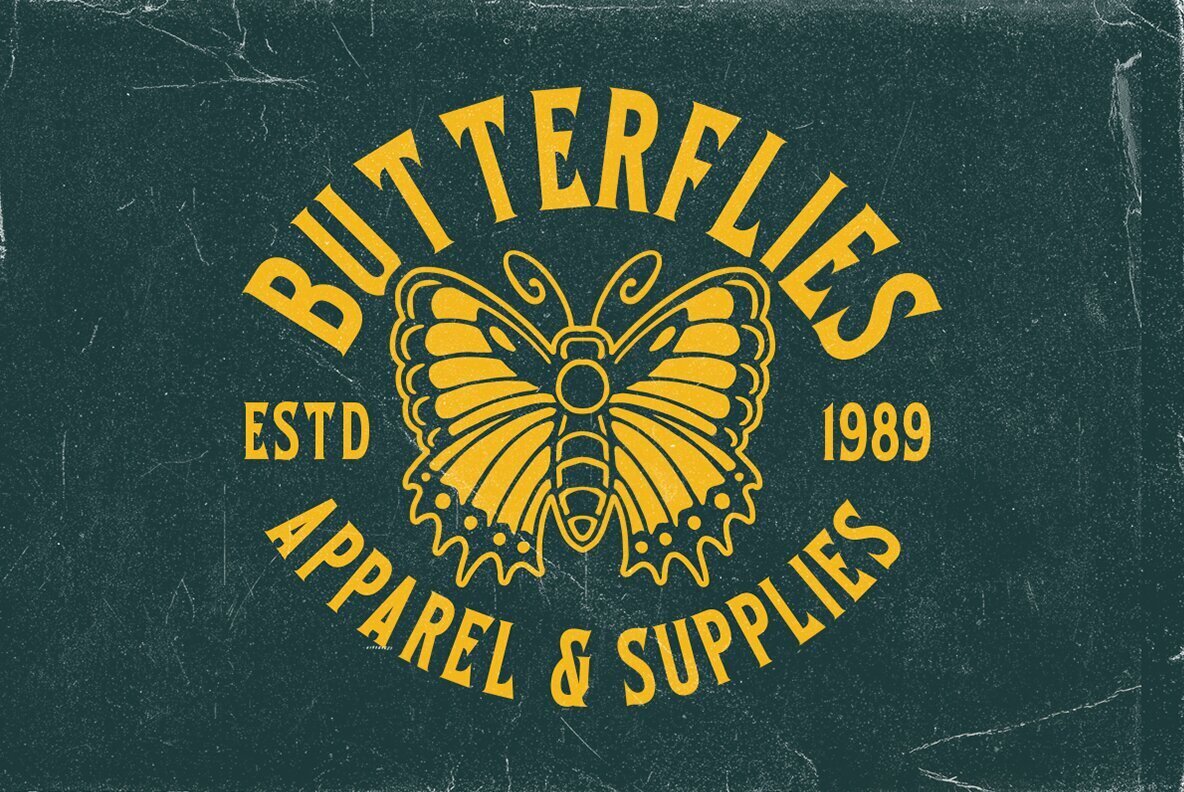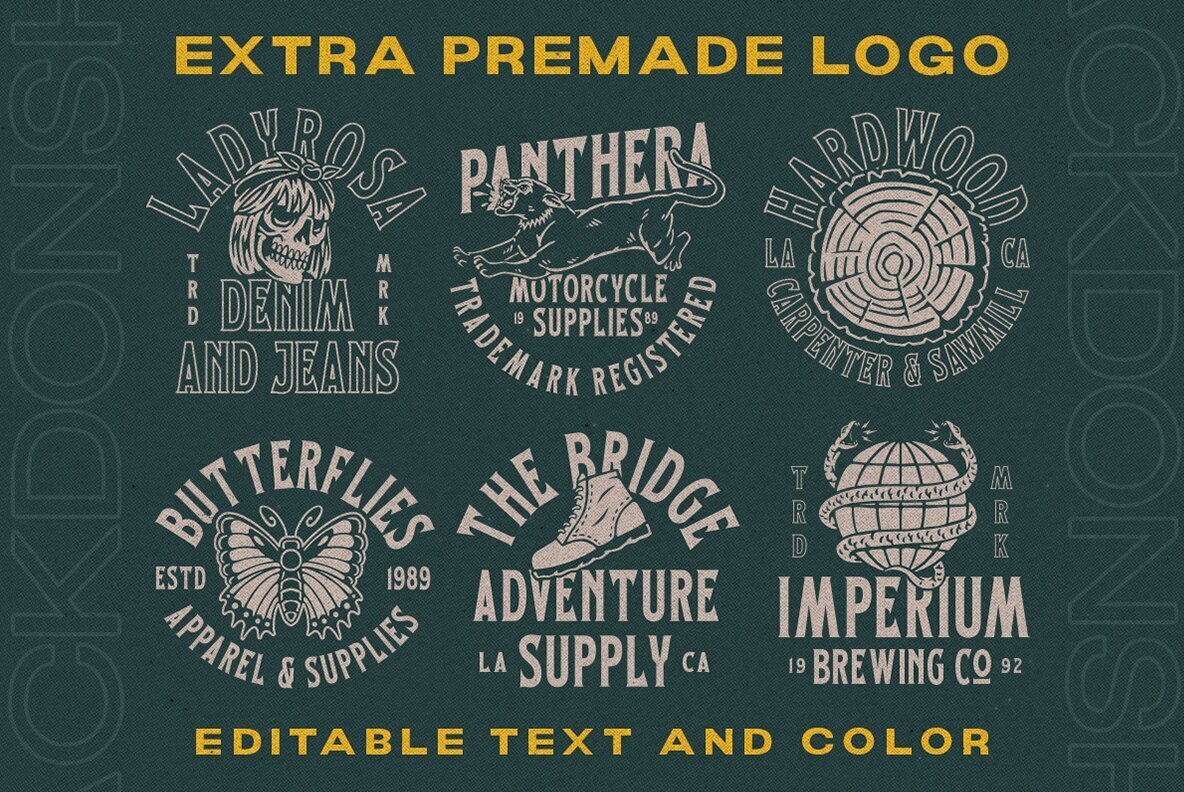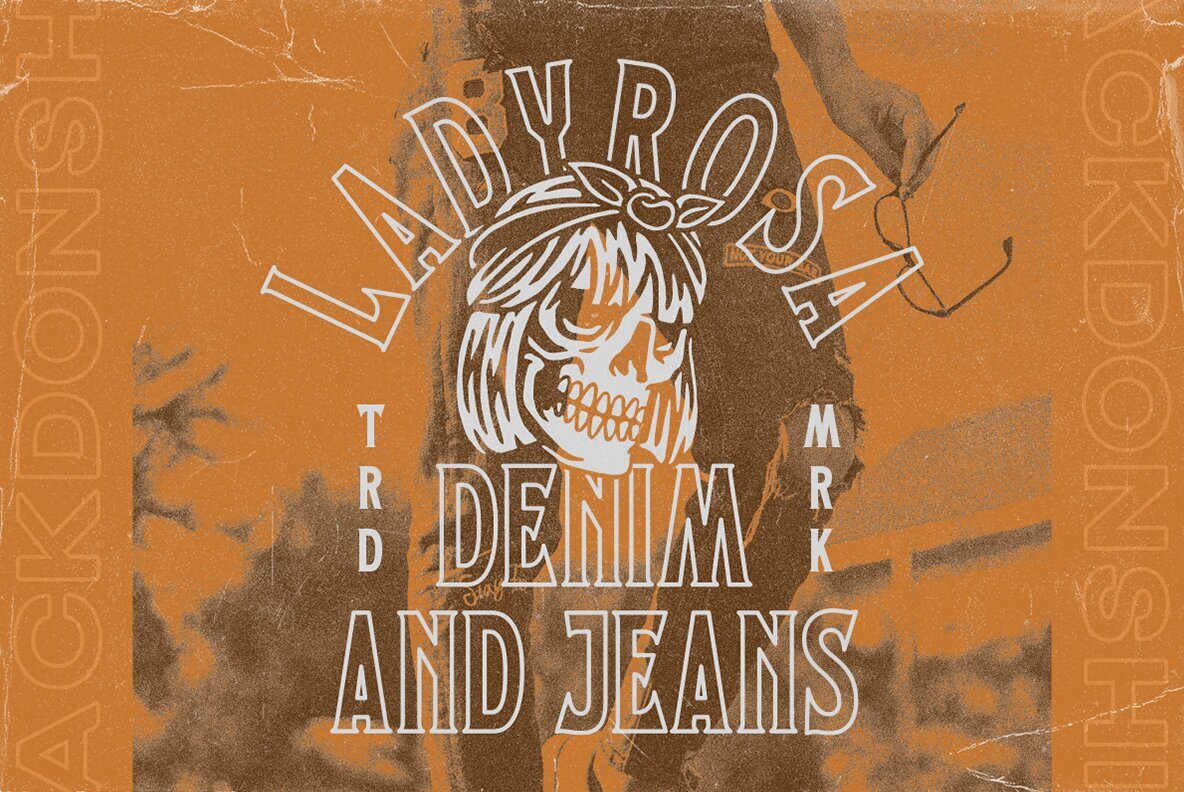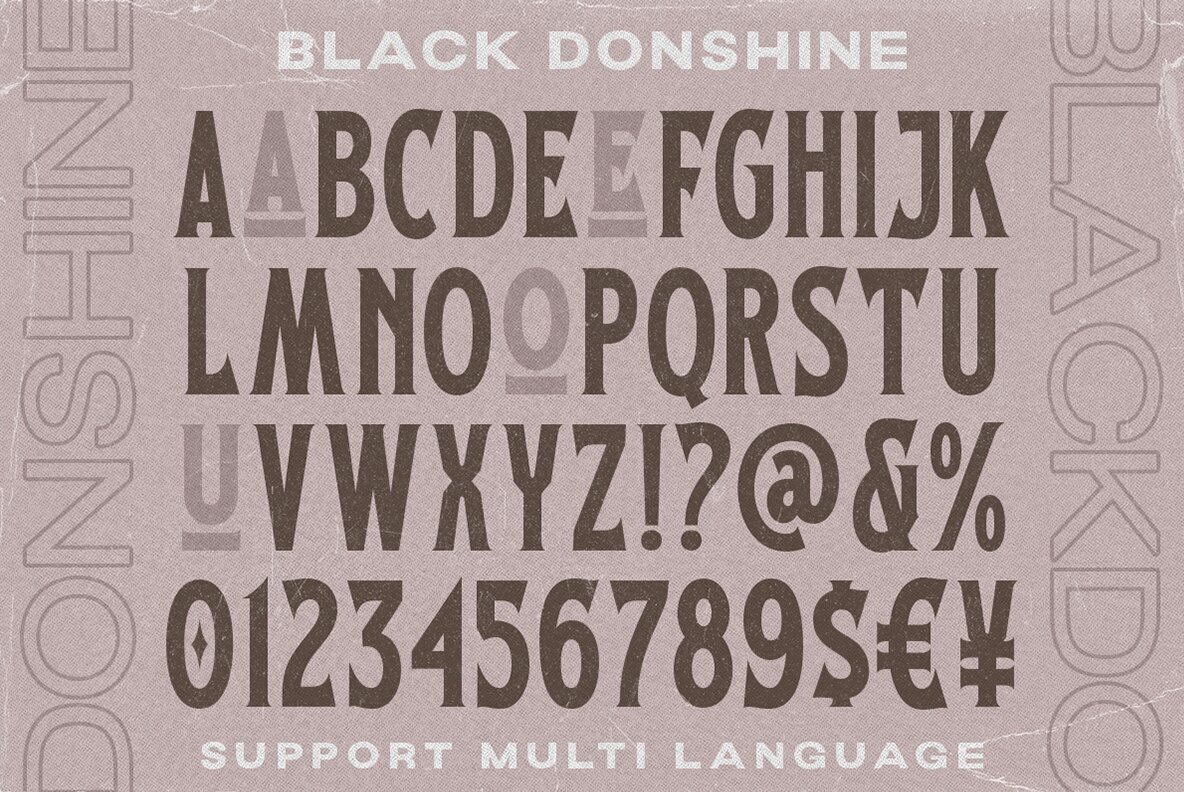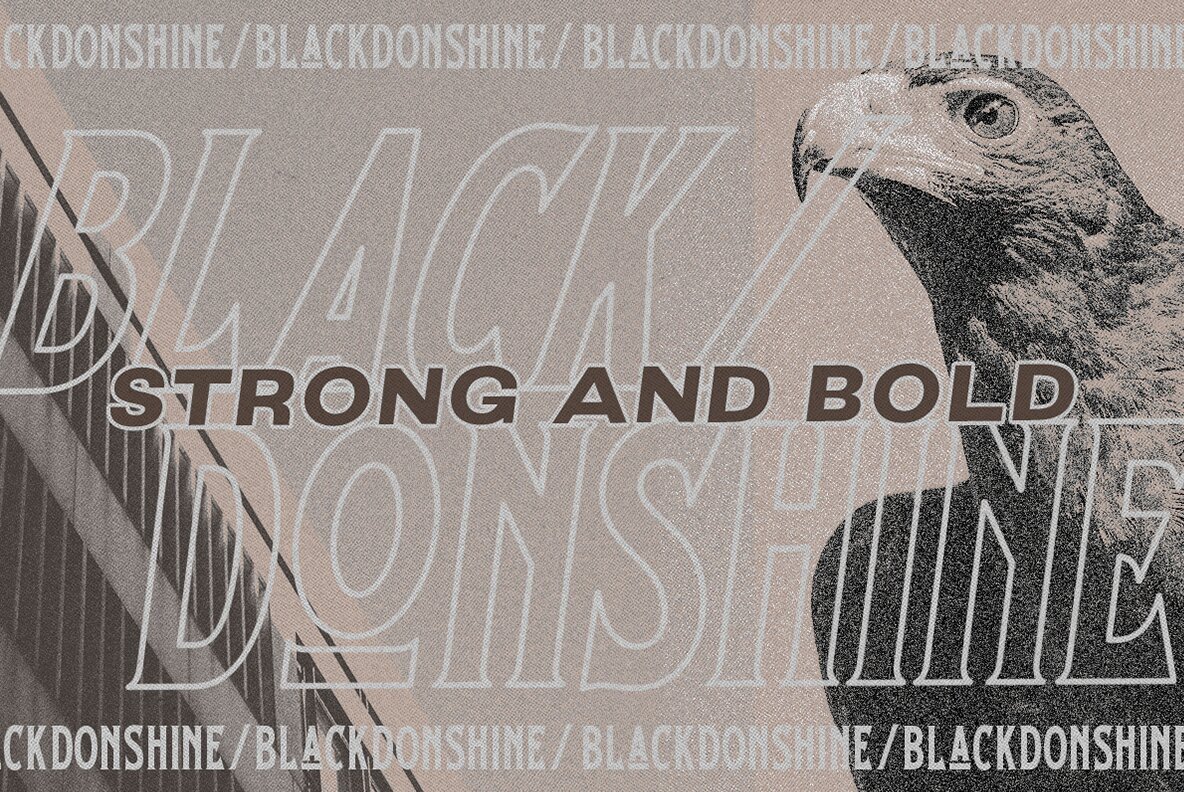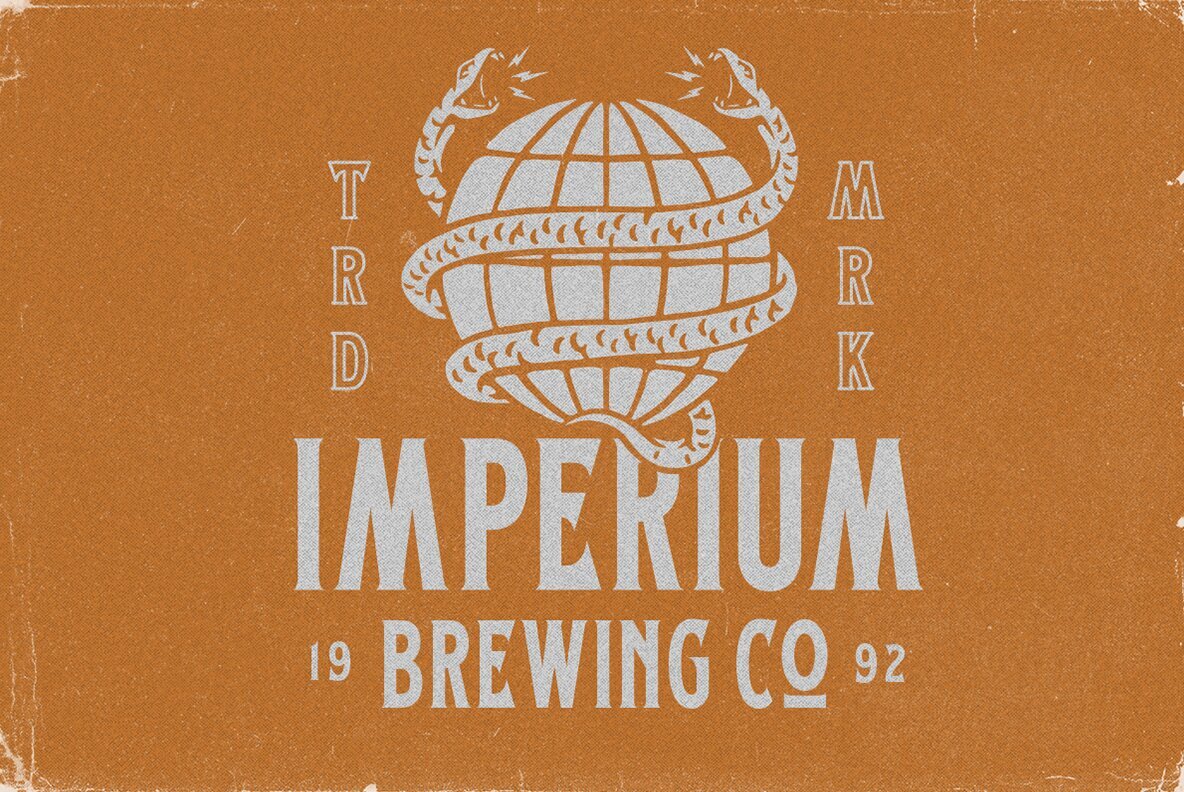
Black Donshine Font
Black Donshine is a display typeface that demands attention with its bold in vintage looks. The sharp hooks and strong lines create a sense of toughness. It comes with illustration bonus!. This font is perfect for designs that require a bold and modern look, such as logos, posters, and advertisements such as invitations, labels, logos, magazines, books, greeting / wedding cards, packaging, fashion, make up, stationery, novels, labels or any type of advertising purpose.